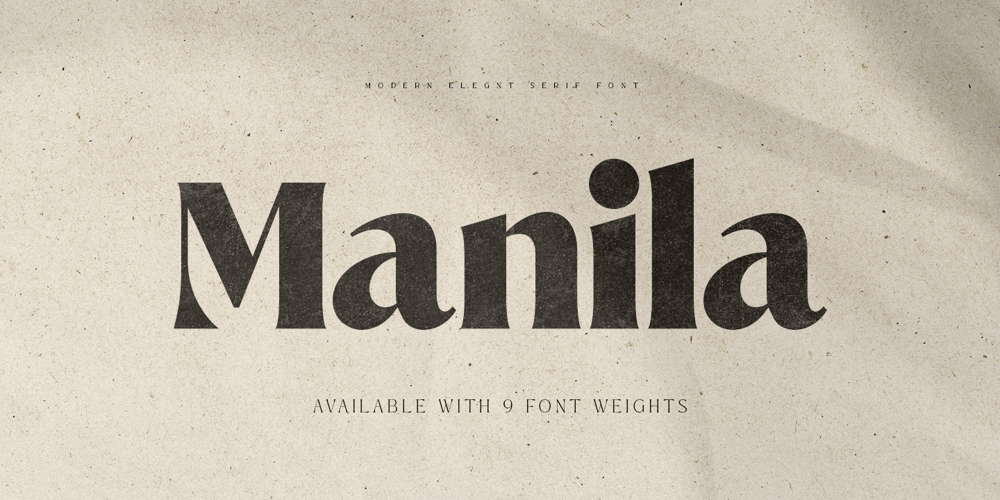
Manila Style Font Family was designed by Zamroni Hamzah and published by Sensatype Studio. Manila Style contains 9 styles and family package options. Manila- Modern Elegant Serif FontManila font is a modern Elegant Serif font with a Elegant , fancy, playful, unique, and versatile vintage sans serif that you can combine to get a beautiful typography. It is a Serif font with moderate contrast that perfect for branding projects, logo, wedding designs, social media posts, advertisements, product packaging, product designs, label, photography, watermark, invitation, stationery, and any projects, it makes with a high level of legibility.What’s Included: Ready 9 Weight (Thin, Extralight, Light, Regular, Medium, SemiBold, Bold, ExtraBold, Black) Character set A-Z Alternative Uppercase & Lowercase Numerals & Punctuation Accented Characters (West Europe) Works on PC & Mac Wish you enjoy our font. ๐